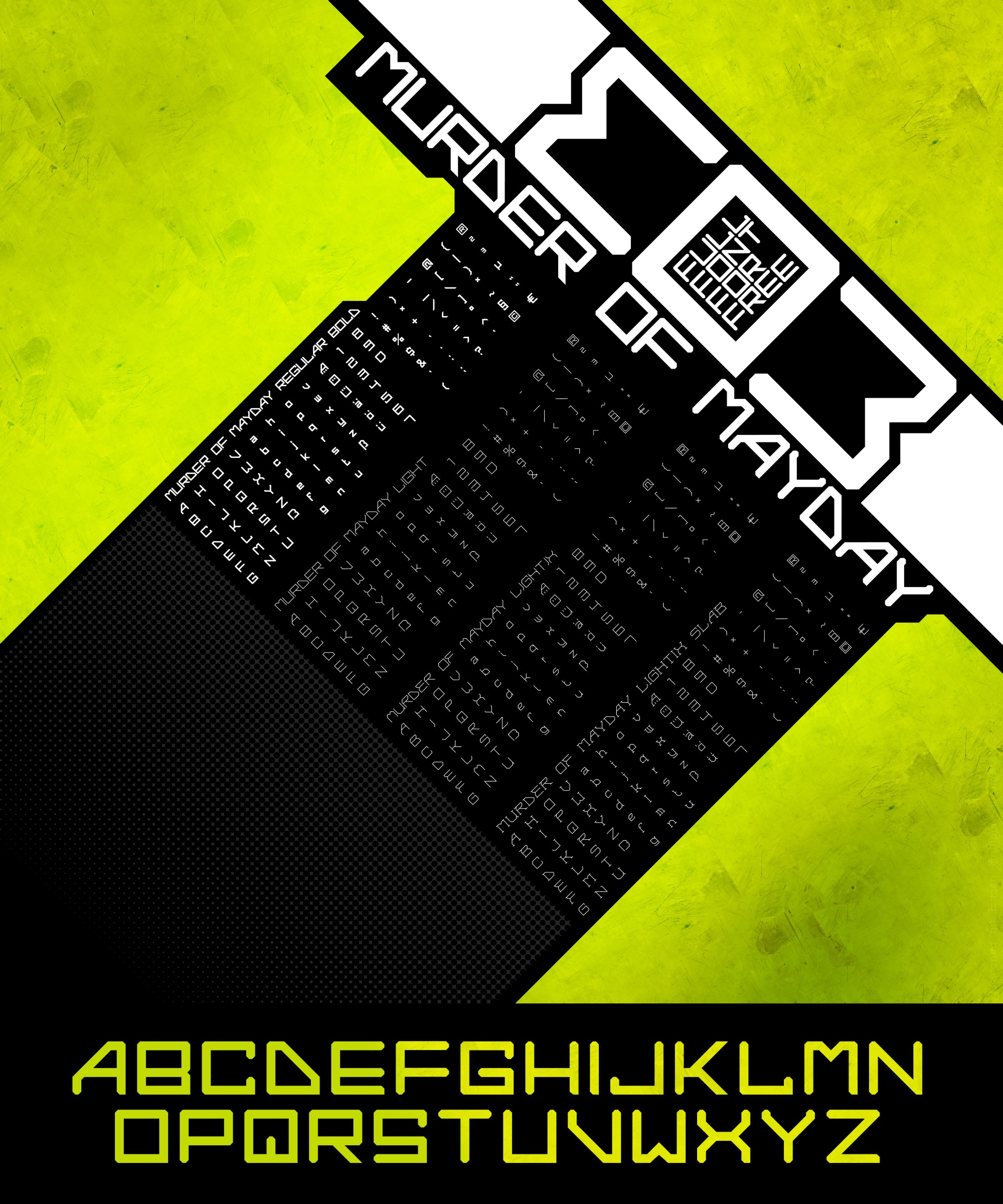
This is my first font called MURDER OF MAYDAY.
4 types of weight:
Regular bold for headlines or logo.
Light, lightix and lightix slab for continuous text.
This is my first font called MURDER OF MAYDAY.
4 types of weight:
Regular bold for headlines or logo.
Light, lightix and lightix slab for continuous text.